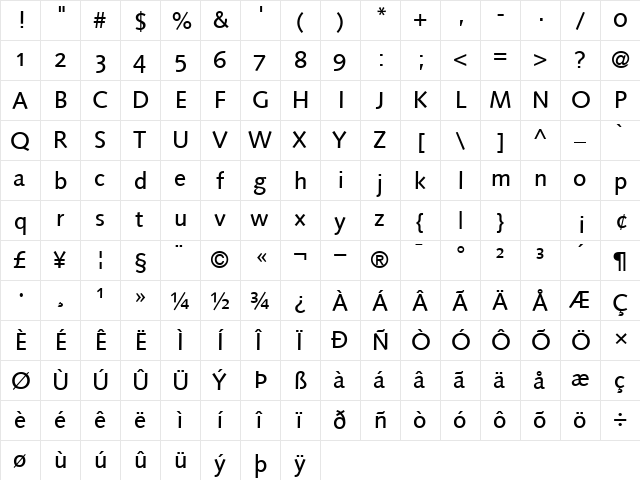
UnisynMedium Regular
Design Context for UnisynMedium Typeface
UnisynMedium is a composed and adaptable typeface that performs quietly and consistently across a wide range of design contexts.